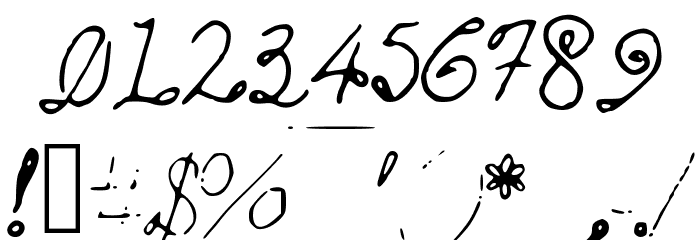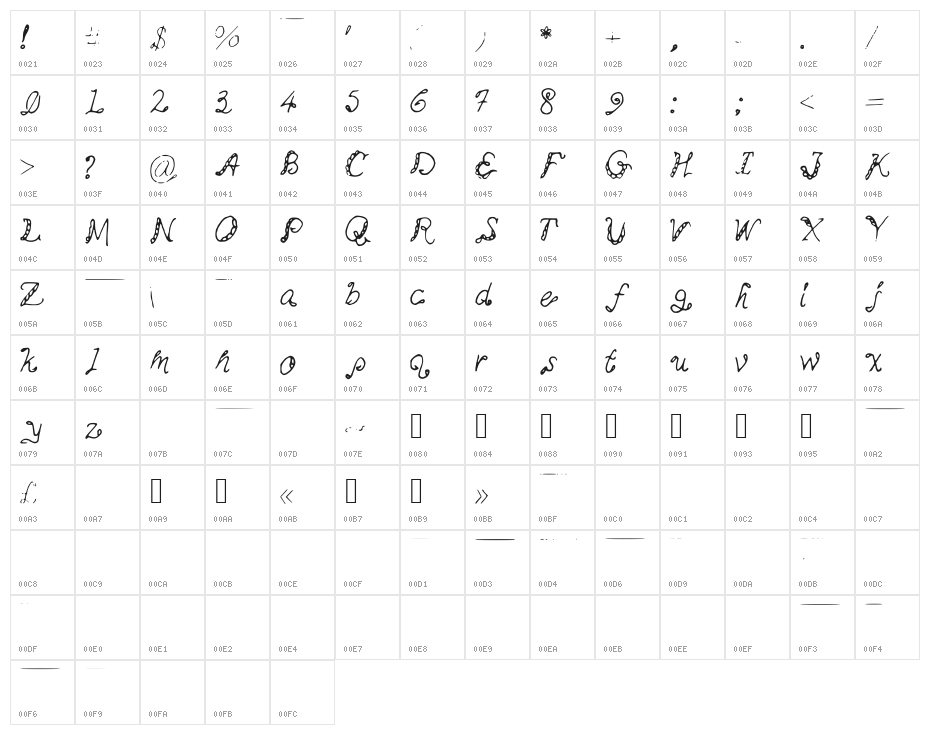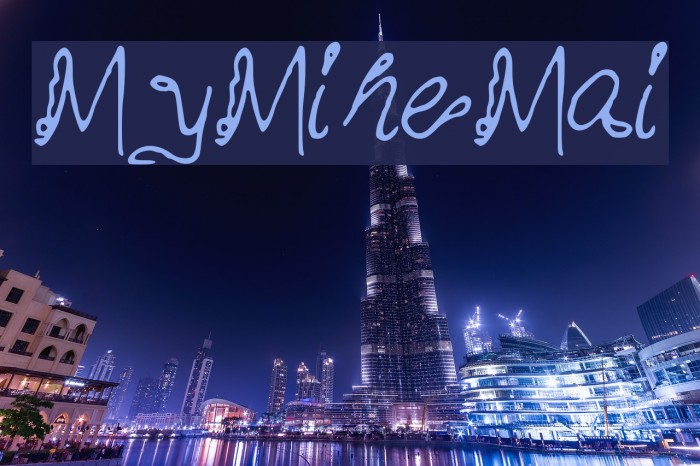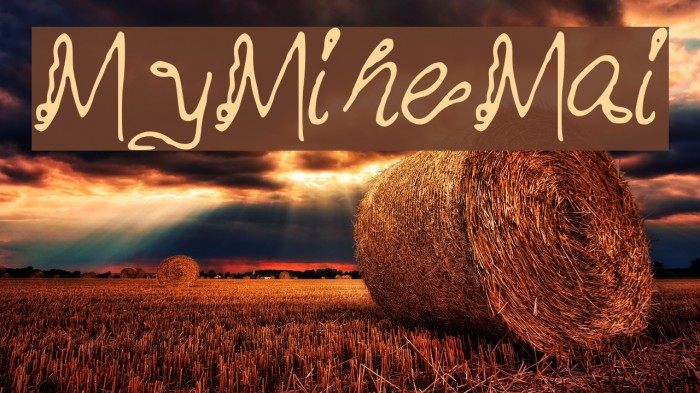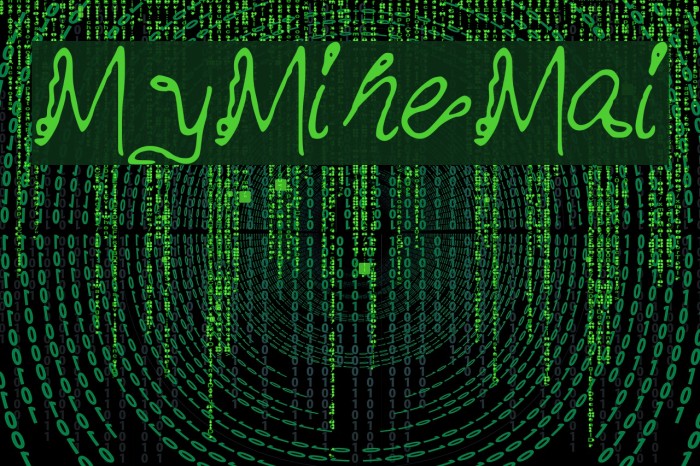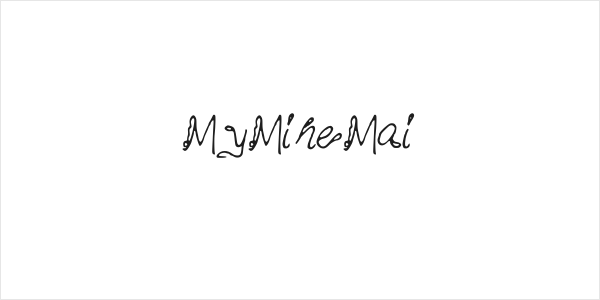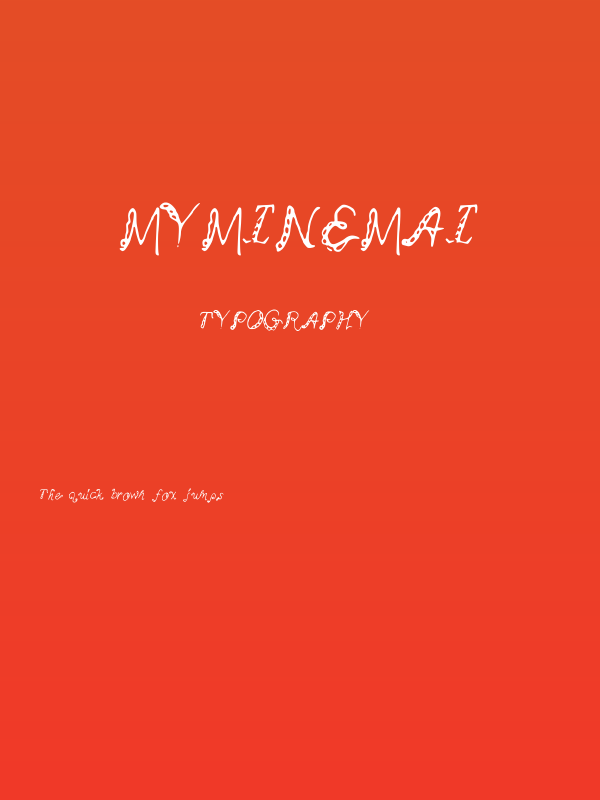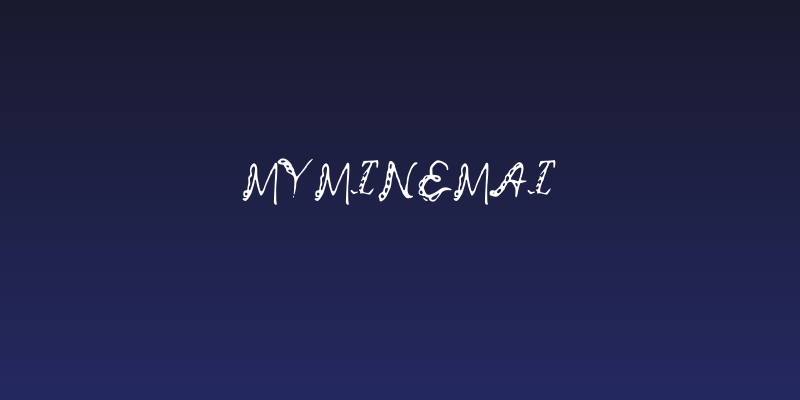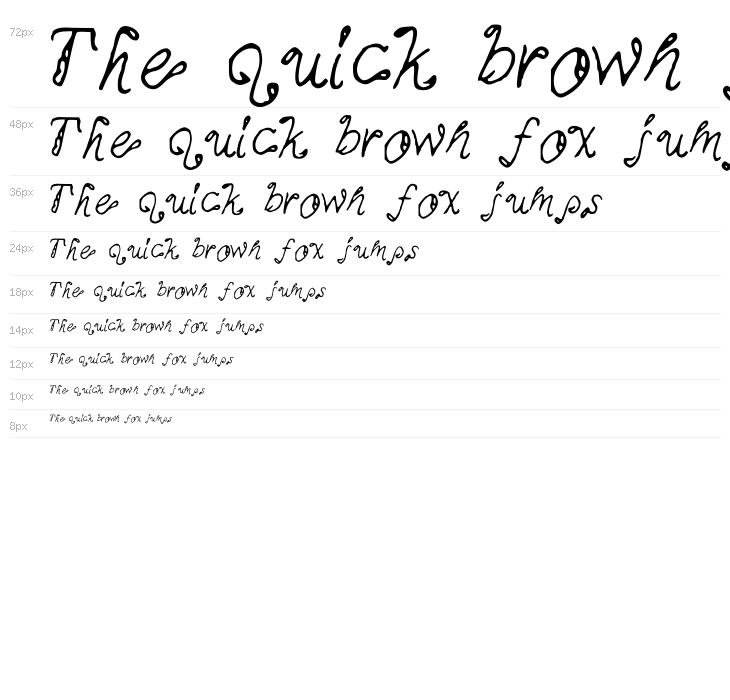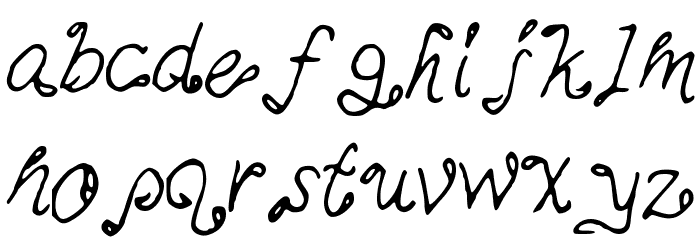
MyMineMai Font
MyMineMai Description
This playful and whimsical font features a unique design with a hand-drawn aesthetic. Each character is adorned with decorative elements, such as dots and swirls, giving it a lively and artistic feel. The uppercase letters are bold and expressive, while the lowercase letters maintain a fluid and cursive style. Numbers and special characters follow the same decorative theme, making the font suitable for creative and informal projects. The overall appearance is both charming and distinctive, perfect for adding a touch of personality to any design.
| Overall Style | Whimsical, Artistic |
| Proposed Projects | Ideal for children's books, greeting cards, playful branding, and artistic posters. |